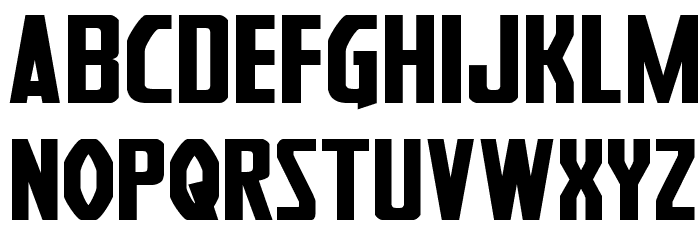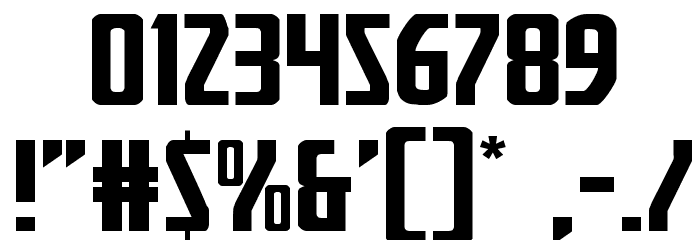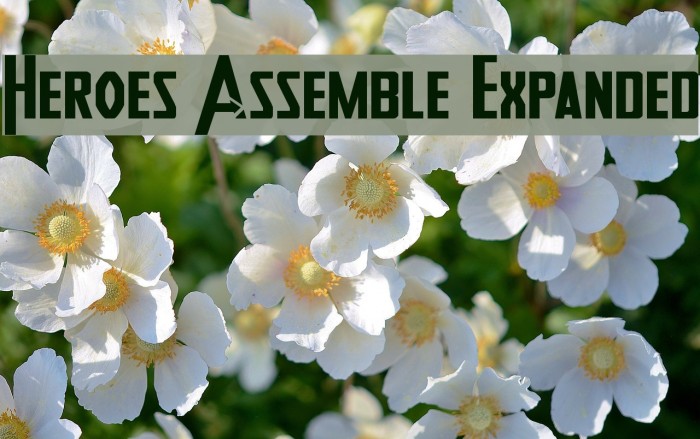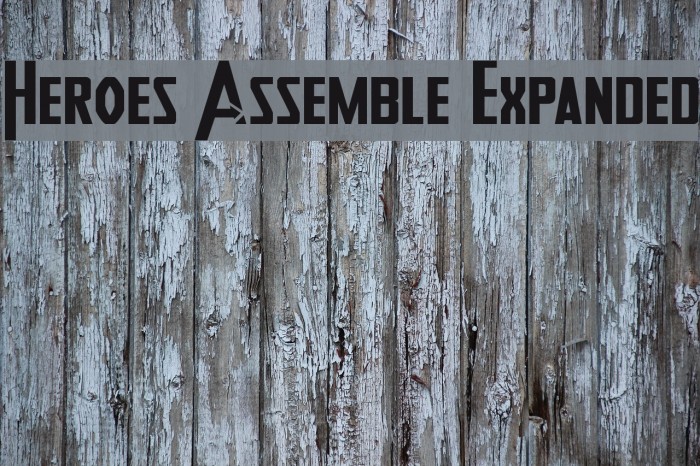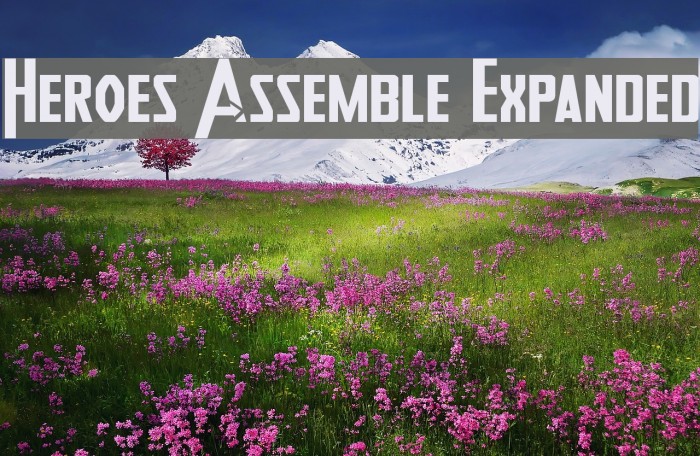
Heroes Assemble Expanded Font
This font features a bold and dynamic design with sharp angles and geometric shapes, giving it a strong and impactful presence. The uppercase letters are particularly striking, with unique cutouts and angular lines that convey a sense of movement and energy. The lowercase letters maintain this bold style, ensuring consistency throughout. Numbers and special characters are equally robust, making them stand out in any design. The font's expanded width allows for a commanding presence, ideal for attention-grabbing headlines or logos. Its modern and futuristic aesthetic makes it suitable for projects that require a bold statement.
A bold, angular font with a modern and dynamic design.
- Proposed Projects: Ideal for superhero-themed designs, movie posters, video game covers, and branding that requires a strong, modern look.